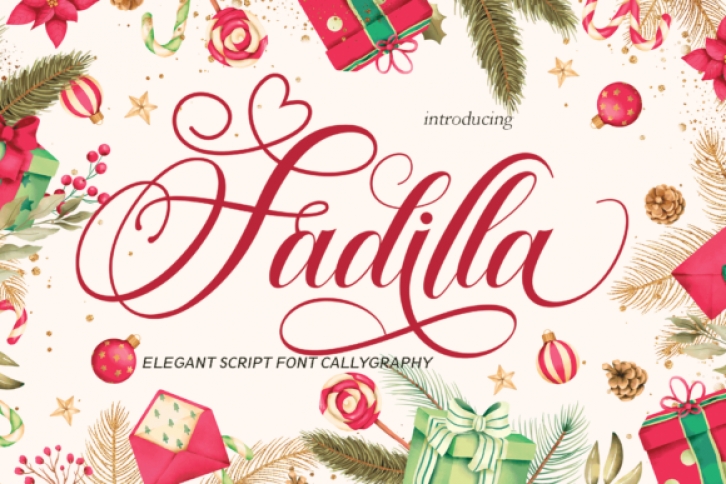
Fadilla is an elegant and flowing handwritten font. It can be used for various purposes such as logos, wedding invitations, headings, t-shirts, letterhead, signage, labels, news, posters, badges and so much more.